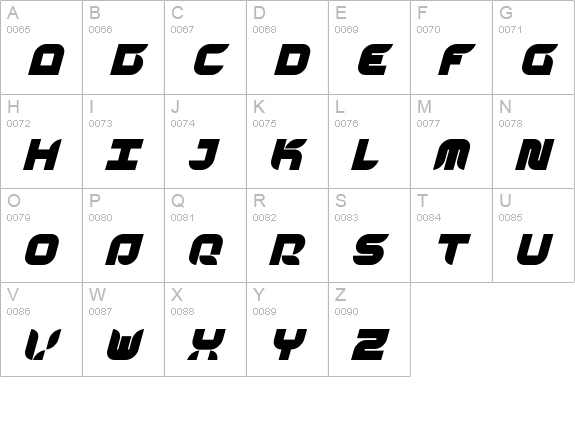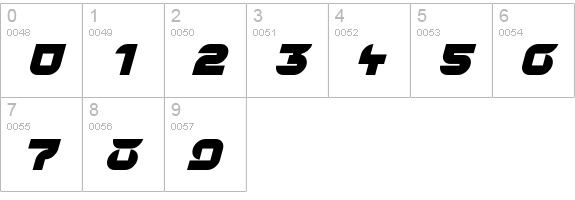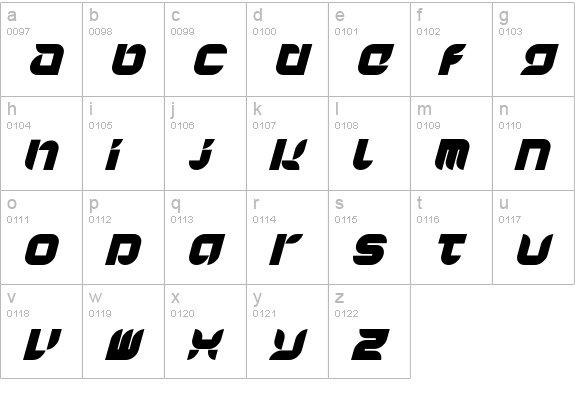
Yr72-BoldItalic Font Details
Yr72-BoldItalic is a striking and bold typeface that exudes a sense of confidence and modernity. Its italicized style adds a touch of elegance and sophistication to any design project. The sleek lines and strong curves of this font make it perfect for creating eye-catching headlines, logos, and other display texts. What sets Yr72-BoldItalic apart is not just its visual appeal, but also its versatility. Whether you're designing for print or web, this font will make your text stand out and grab the attention of your audience. Its clean and easily readable design ensures that your message comes across clearly and effectively. The best part? Yr72-BoldItalic is available for free download at FontsMarket.com. So go ahead and elevate your designs with this stylish and impactful font today!